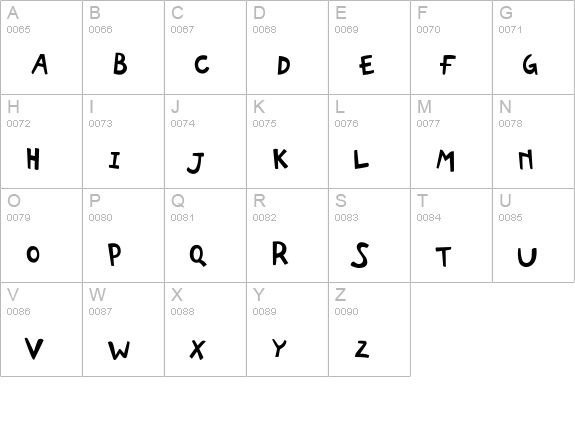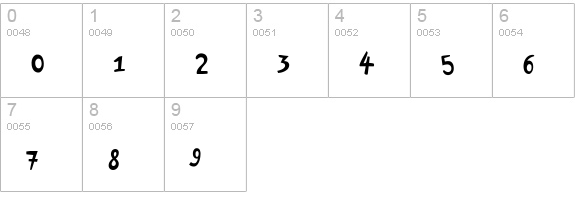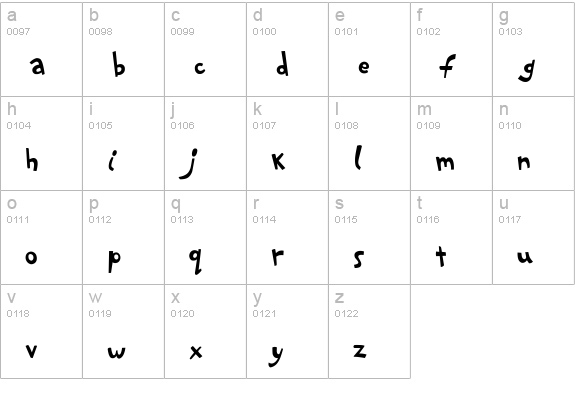
PFPlayskoolPro-Regular Font Details
PFPlayskoolPro-Regular is the standard, neutral variant in the PFPlayskoolPro typeface family \xE2\x80\x94 well suited to general body text, paragraphs, and standard typographic work.
PFPlayskoolPro-Regular font is a charming and playful typeface that is perfect for adding a fun and whimsical touch to your projects. With its friendly and welcoming design, this font is ideal for children's books, posters, invitations, and more. The rounded edges and cheerful appearance of PFPlayskoolPro-Regular make it a great choice for any design that needs a touch of innocence and joy. And the best part is, PFPlayskoolPro-Regular font is available for free download at FontsMarket.com! You can easily add this delightful font to your collection and start using it in your creative projects right away. Don't miss out on the opportunity to enhance your designs with this fun and versatile typeface. Download PFPlayskoolPro-Regular today and let your creativity shine!